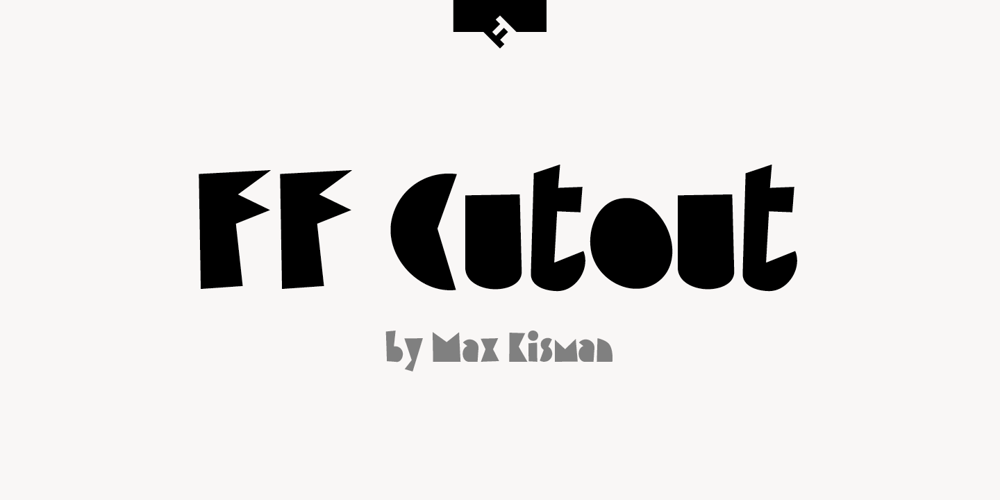
FF Cutout
FF Cutout font
FF Cutout Font Family was designed by Max Kisman and published by FontFont. FF Cutout contains 1 styles and family package options. Dutch type designer Max Kisman created this display FontFont in 1990. The font is ideally suited for advertising and packaging, editorial and publishing as well as poster and billboards. FF Cutout provides advanced typographical support with features such as ligatures and case-sensitive forms. It comes with proportional lining figures.